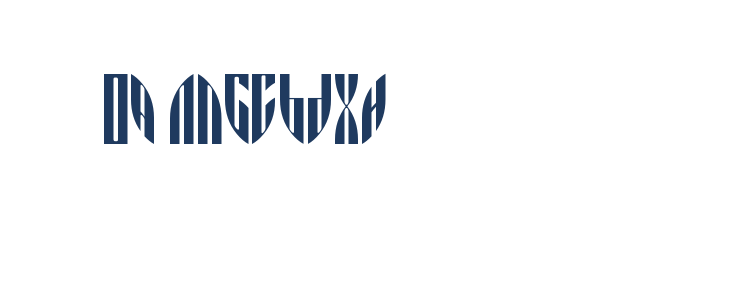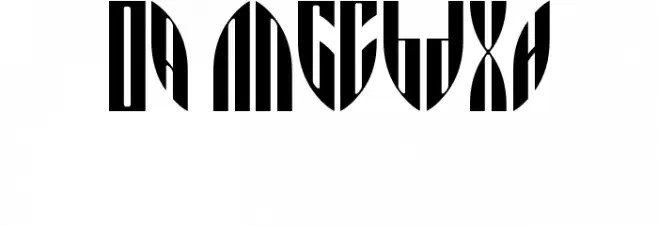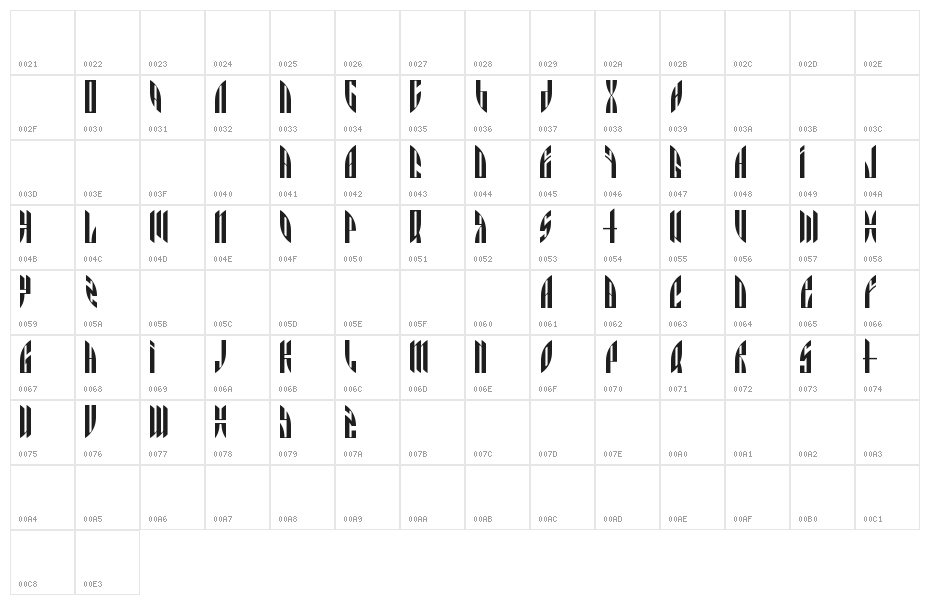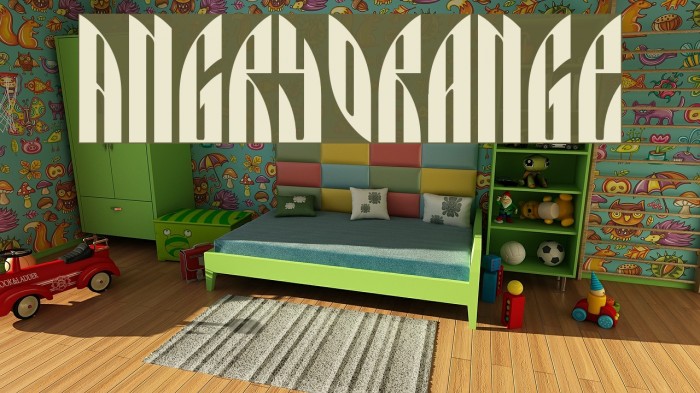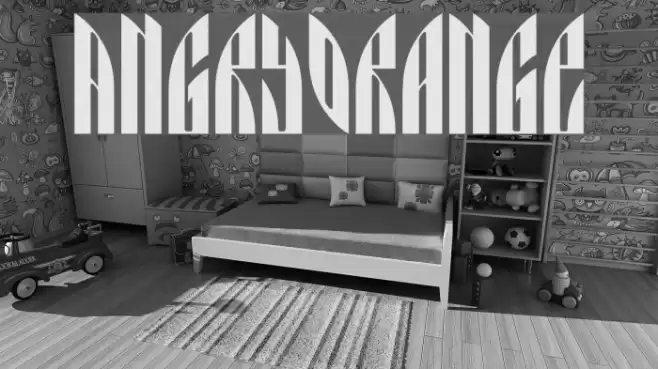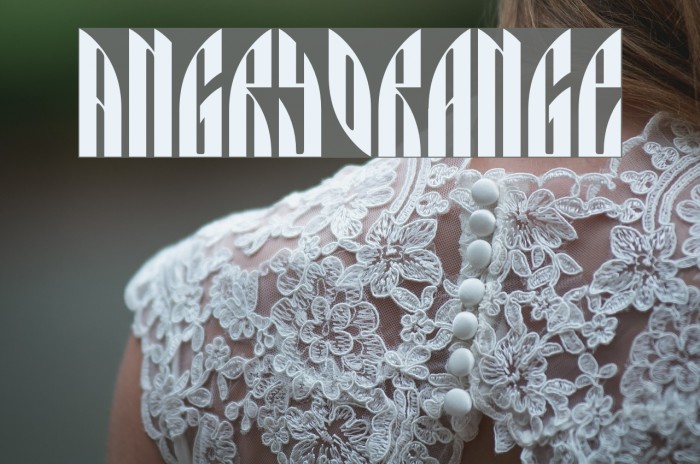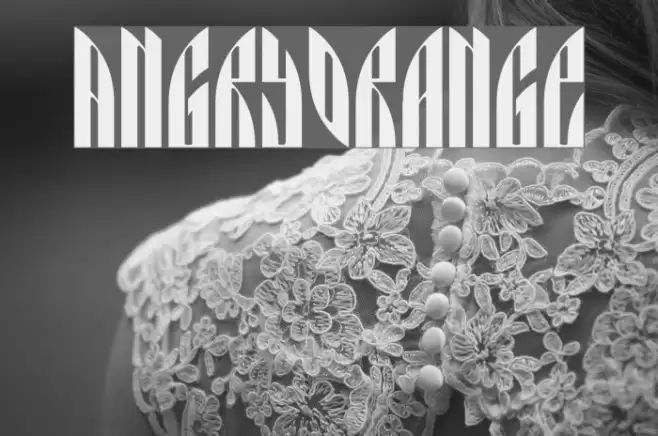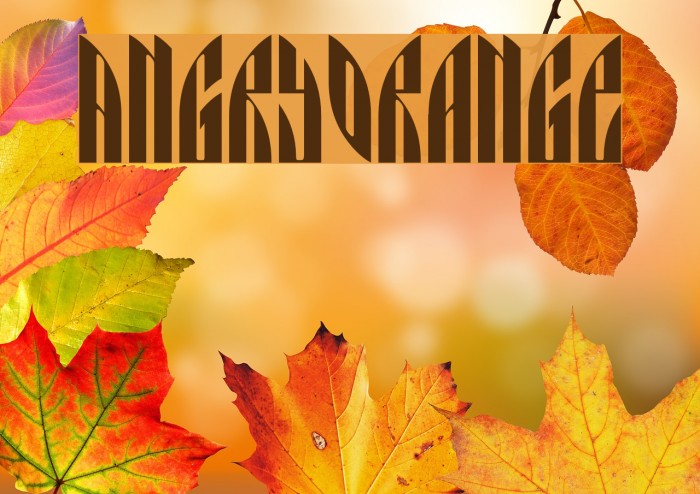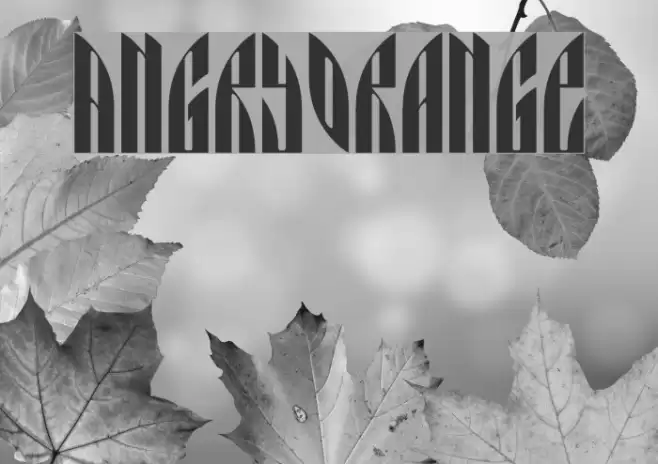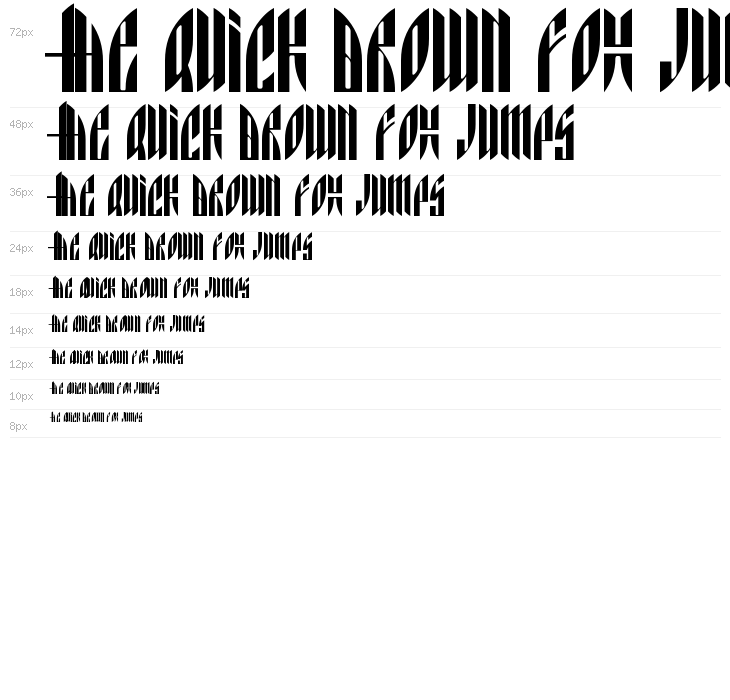
AngryOrange Font
AngryOrange Description
This font features a bold and striking design with a futuristic and geometric aesthetic. The characters are crafted with sharp angles and a high level of symmetry, creating a visually impactful appearance. The uppercase and lowercase letters maintain a consistent style, with each character exhibiting a unique blend of curves and straight lines. The numbers and special characters follow the same design principles, ensuring uniformity across the font. The overall look is modern and avant-garde, making it suitable for projects that require a strong visual statement.